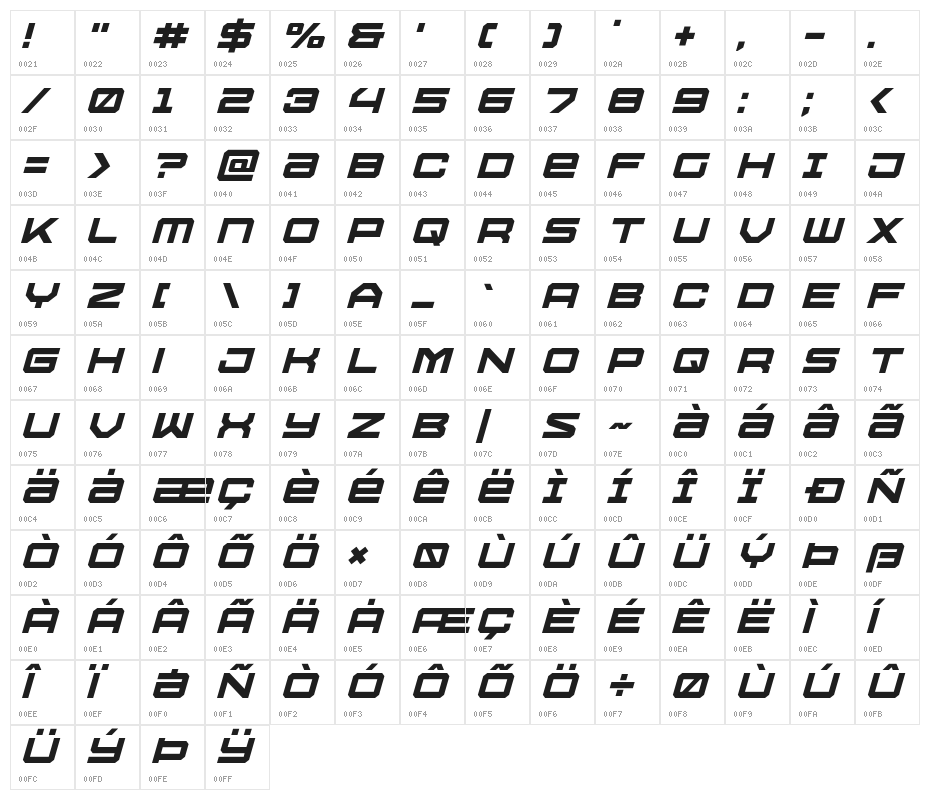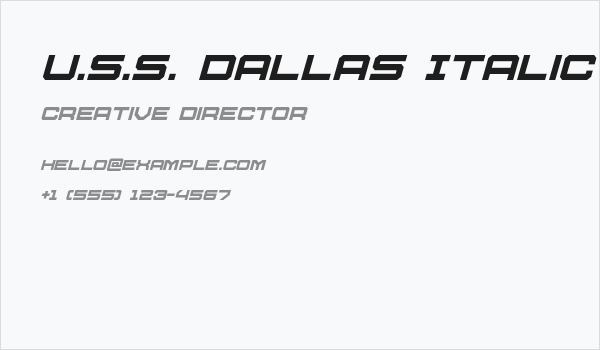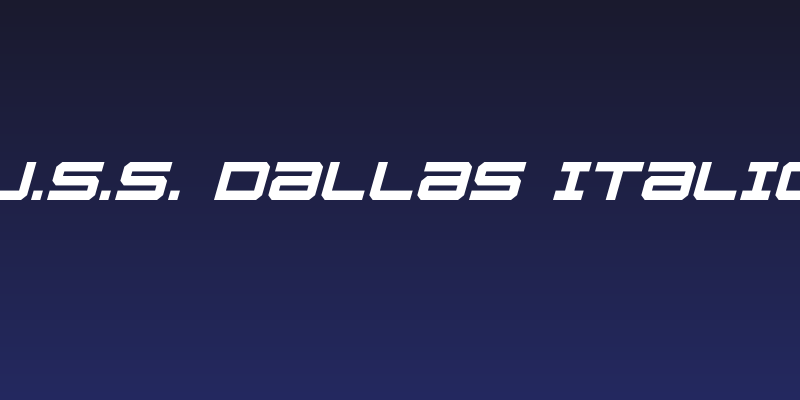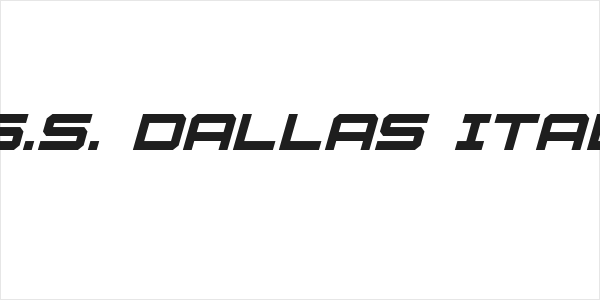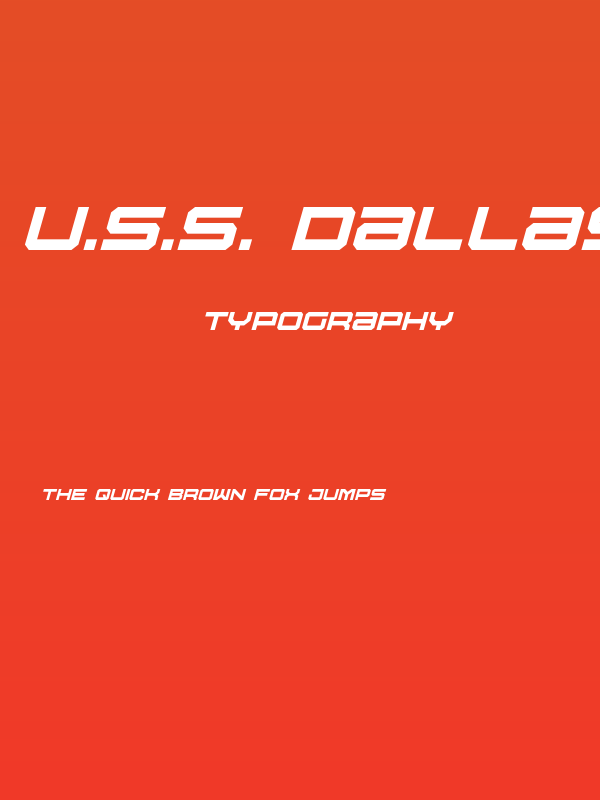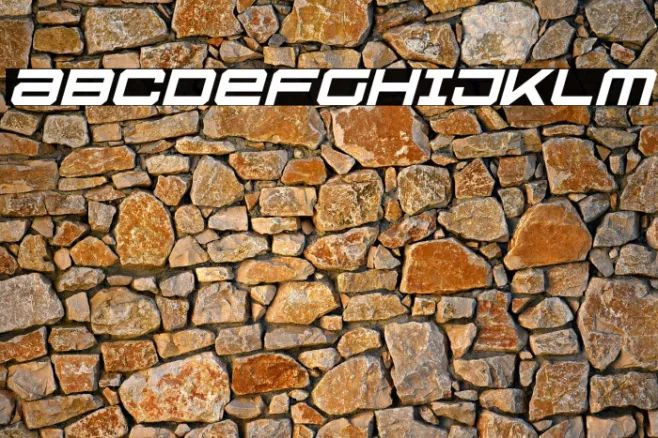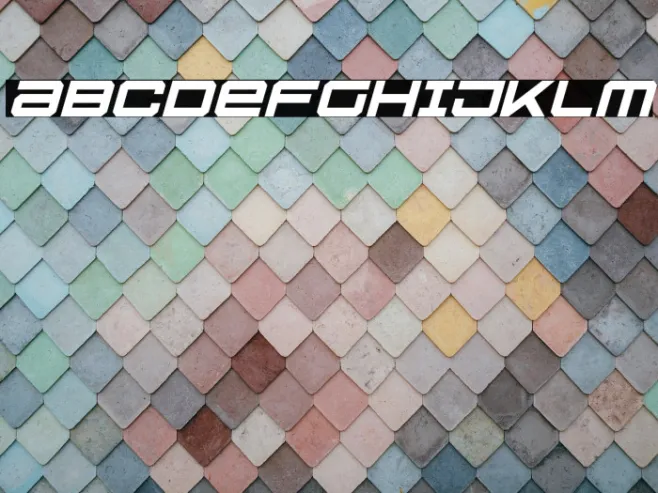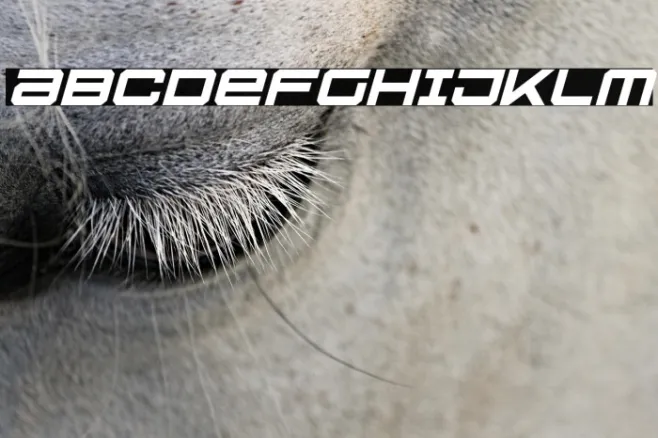
U.S.S. Dallas Italic Font
U.S.S. Dallas Italic Description
This font exhibits a bold, italicized style with a futuristic and dynamic appearance. The characters are angular and slightly condensed, giving a sense of speed and modernity. The uppercase and lowercase letters maintain a consistent slant, enhancing the italic effect. Numbers and special characters follow the same design principles, ensuring uniformity across all glyphs. The sharp edges and geometric shapes contribute to its distinctive look, making it suitable for projects that require a modern and edgy aesthetic.
| Proposed Projects | Ideal for technology branding, sports team logos, video game titles, and sci-fi themed designs. |